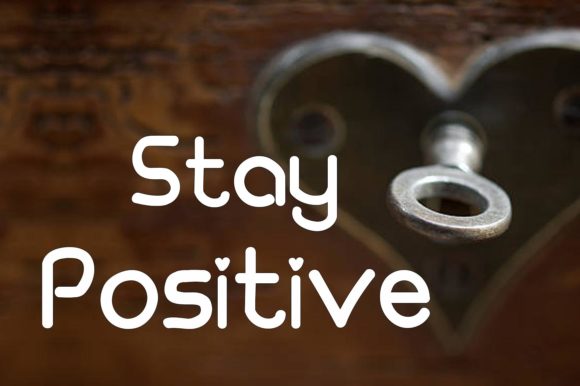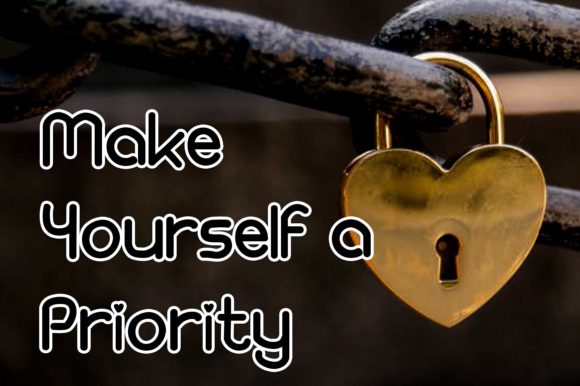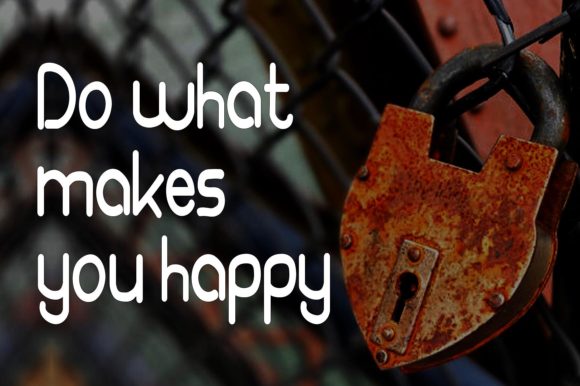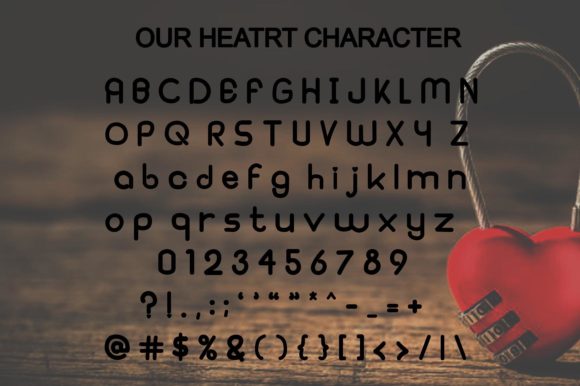
Introduction to Our Heart Font
Our Heart is a cute and simple handwritten font.
Its neat style and casual vibe will make this font a go-to choice for each of the creations that require a relaxed touch .
Key Features of Our Heart Font